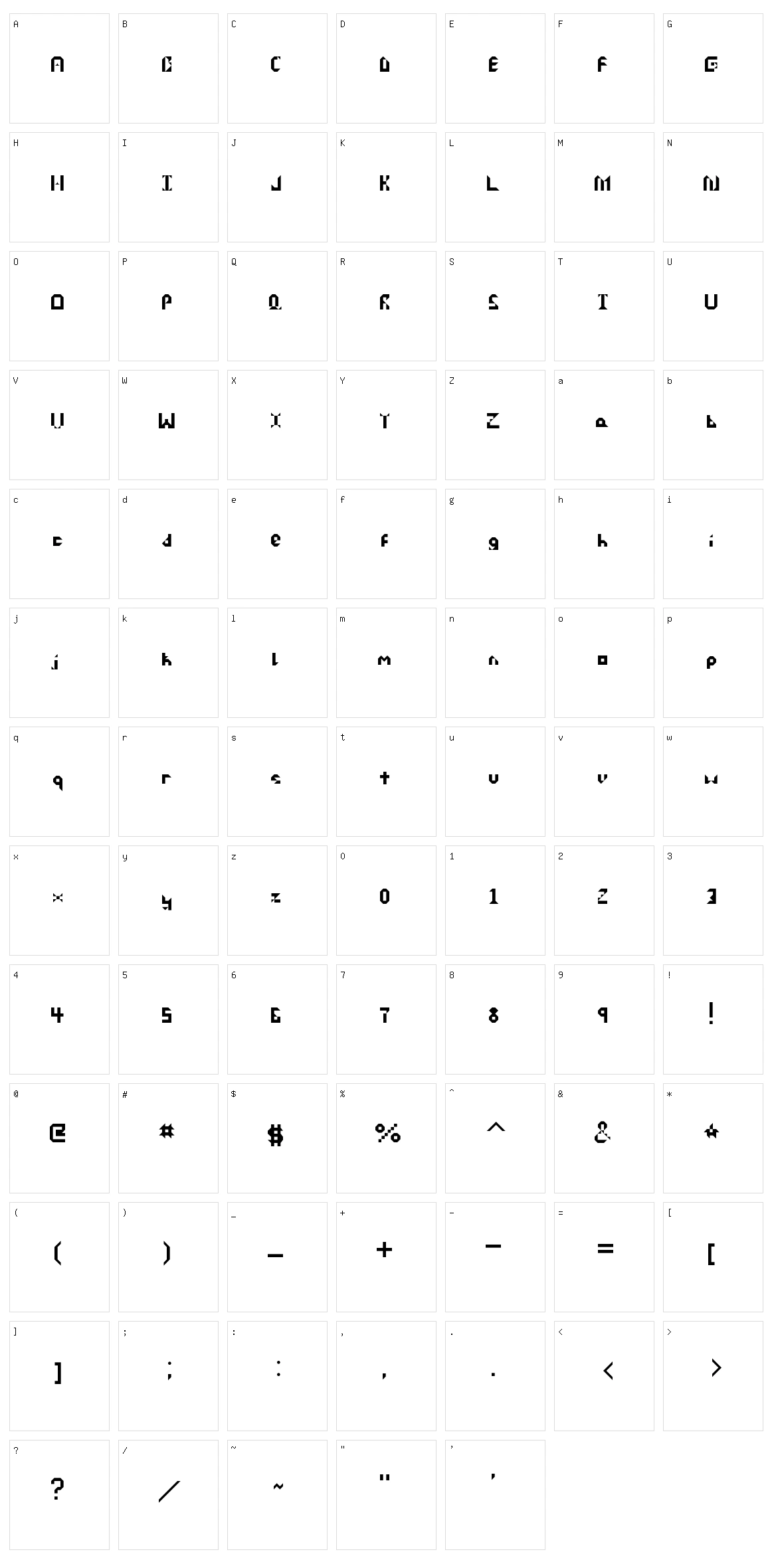
The free font Dispose is carefully designed by Jordan Stackhouse, showcasing a thoughtful balance of creativity and usability and falls under the Square font style. When you download the ZIP file, it contains only 4.36 KB of font files, making it lightweight and quick to download. Please review the license details below to understand permitted usage and distribution rights. If license information is not available, we recommend using this font for personal projects only or contacting the author directly for commercial usage permissions.
The FontStruction âDisposeâ